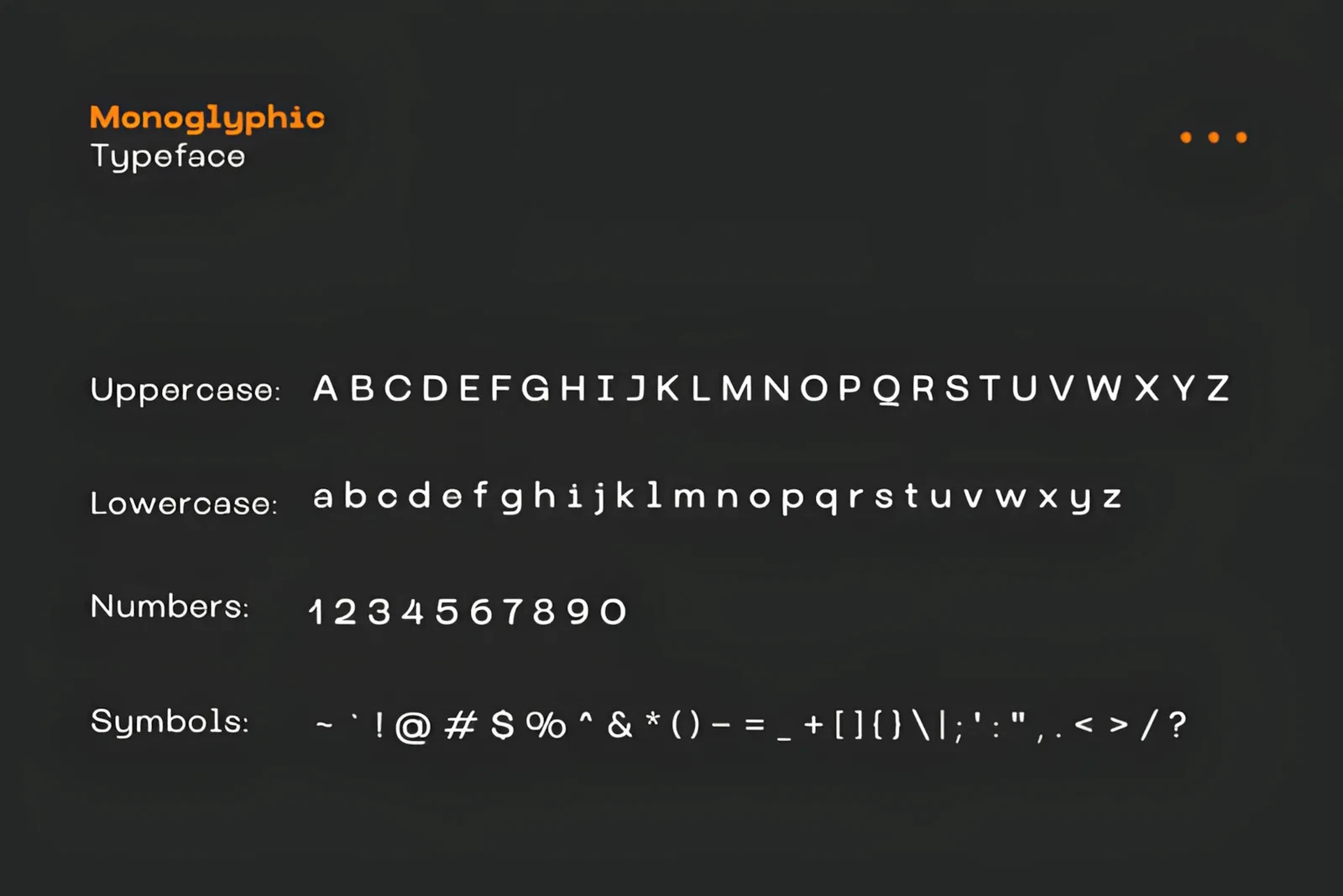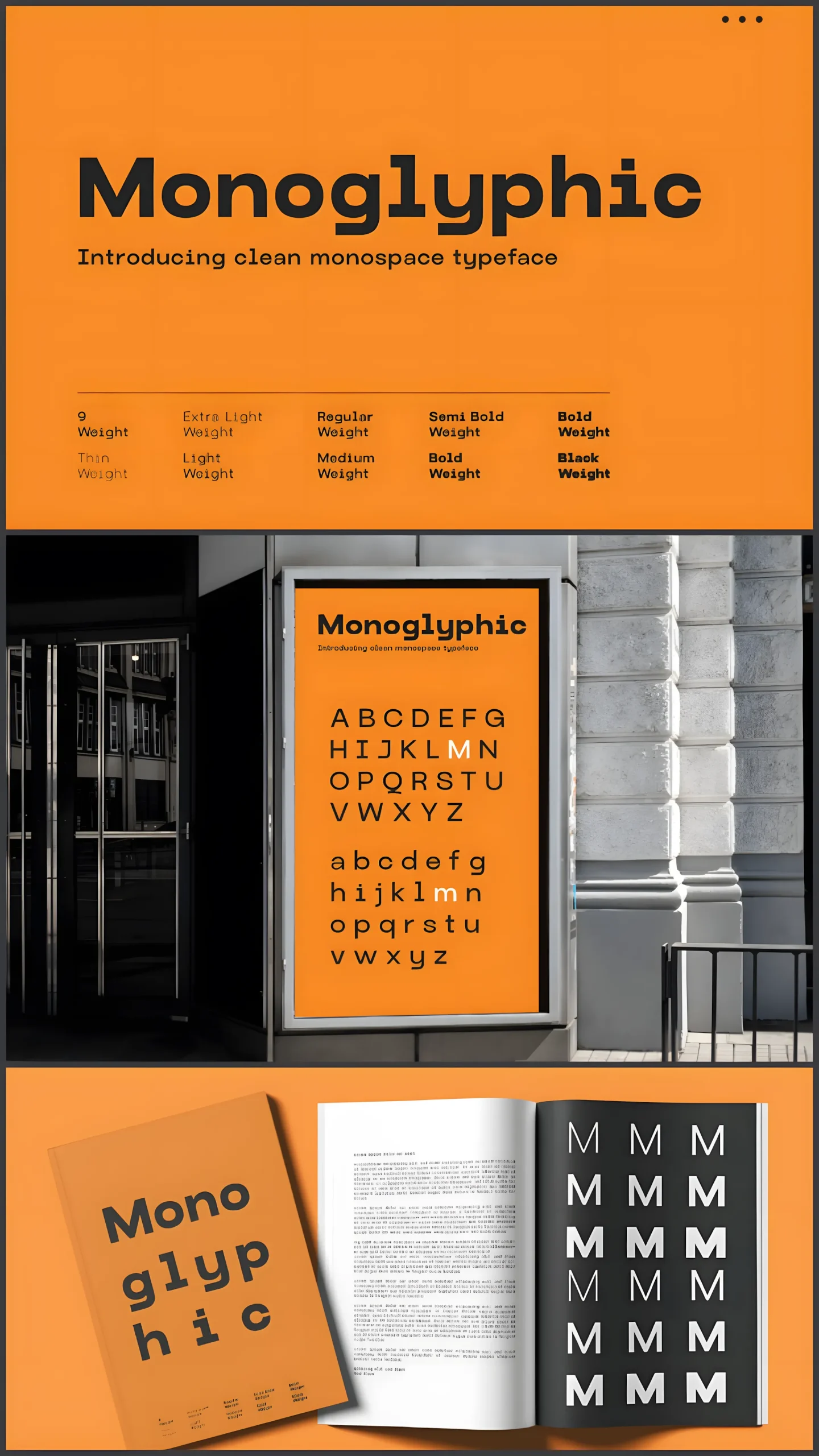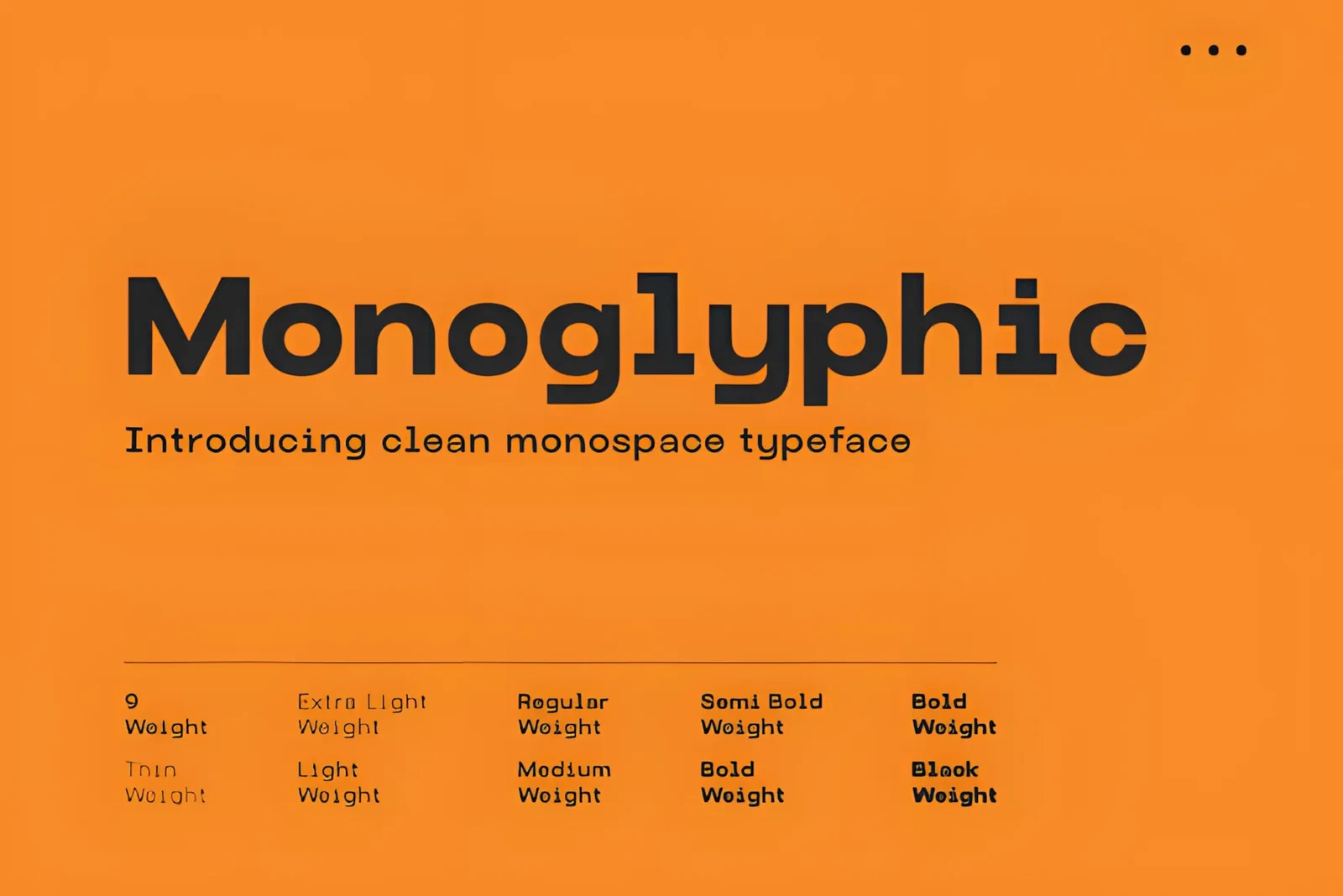
In a world filled with decorative and expressive fonts, sometimes clarity matters more than personality. Monoglyphic Font was created with that exact idea in mind. This is a clean monospace typeface designed to bring structure, consistency, and precision into modern design projects.
Every character in Monoglyphic shares the same width, creating a perfectly aligned and harmonious rhythm across text. The result is typography that feels organized, balanced, and visually calm — ideal for projects where readability and structure come first.
Visual Style and First Impression
Monoglyphic Font delivers an immediate sense of order. The letterforms are simple, modern, and evenly spaced, giving the typeface a refined and professional appearance. There are no unnecessary decorations or stylistic distractions — each glyph feels intentional and precise.
The monospace structure gives text a uniform grid, which creates a clean and systematic look. This makes Monoglyphic especially appealing to designers who value minimalism, clarity, and visual consistency.
Despite its simplicity, the font does not feel cold or mechanical. The shapes are carefully crafted, which gives the typeface a subtle elegance that works well beyond purely technical contexts.
A Monospace Typeface With Versatility
Monoglyphic Font includes a wide range of weights, from thin and extra light to bold, extra bold, and black. This variety allows the font to adapt to different design needs while maintaining the same consistent structure.
The availability of multiple weights makes it possible to build clear hierarchy within a layout using a single font family. Headlines, subheadings, and body text can all rely on Monoglyphic without losing visual cohesion.
This flexibility is one of the font’s strongest advantages.
Designed for Clarity and Precision
Monoglyphic Font was clearly designed with precision in mind. The even spacing and consistent character width ensure that text remains readable and visually aligned in any context.
This makes the font especially suitable for:
- technical documents
- coding-related visuals
- user interfaces
- digital dashboards
- modern editorial layouts
Text set in Monoglyphic feels structured and easy to scan, which is essential for information-heavy designs.
Practical Design Applications
Coding, Technical, and Digital Projects
Monospace fonts are often associated with coding and development, and Monoglyphic fits naturally into this space. Its clean shapes and consistent spacing make it comfortable to read in technical contexts.
It works well for:
- code previews
- developer portfolios
- technical documentation
- UI mockups
The font helps present complex information in a way that feels organized and accessible.
Editorial and Print Design
Beyond technical use, Monoglyphic Font performs surprisingly well in editorial design. Used for headings, captions, or structured layouts, it brings a modern and minimalist aesthetic to print projects.
Magazines, brochures, and reports benefit from its clean rhythm and balanced proportions. When paired with a more expressive body font, Monoglyphic creates strong contrast without visual conflict.
Branding and Modern Identity
For brands that value simplicity and precision, Monoglyphic Font can become a strong typographic foundation. It works especially well in:
- tech branding
- digital products
- creative studios
- modern portfolios
The font communicates clarity, confidence, and attention to detail — qualities often associated with contemporary design.
Readability and Usage Notes
Although Monoglyphic Font is highly readable, it is still best used thoughtfully. As a monospace typeface, it excels in structured layouts and short-to-medium text lengths.
For long-form body text, pairing it with a proportional font can help maintain reading comfort. However, for headings, labels, captions, and technical content, Monoglyphic performs exceptionally well on its own.
Spacing and alignment are where this font truly shines.
Emotional Tone and Design Feel
The emotional tone of Monoglyphic Font is calm, modern, and refined. It does not try to attract attention through decoration. Instead, it communicates reliability and balance.
This makes it ideal for projects where trust, clarity, and professionalism matter more than expression or playfulness. The font feels contemporary without being trendy, which gives it lasting value.
Monoglyphic Font proves that simplicity can be powerful. By focusing on consistency, structure, and clean design, it offers a reliable typographic solution for modern creative work.
For designers seeking a monospace font that feels refined rather than rigid, Monoglyphic Font provides a strong balance of functionality and aesthetic quality. Used with intention, it brings order, clarity, and elegance to any project that values precision over ornament